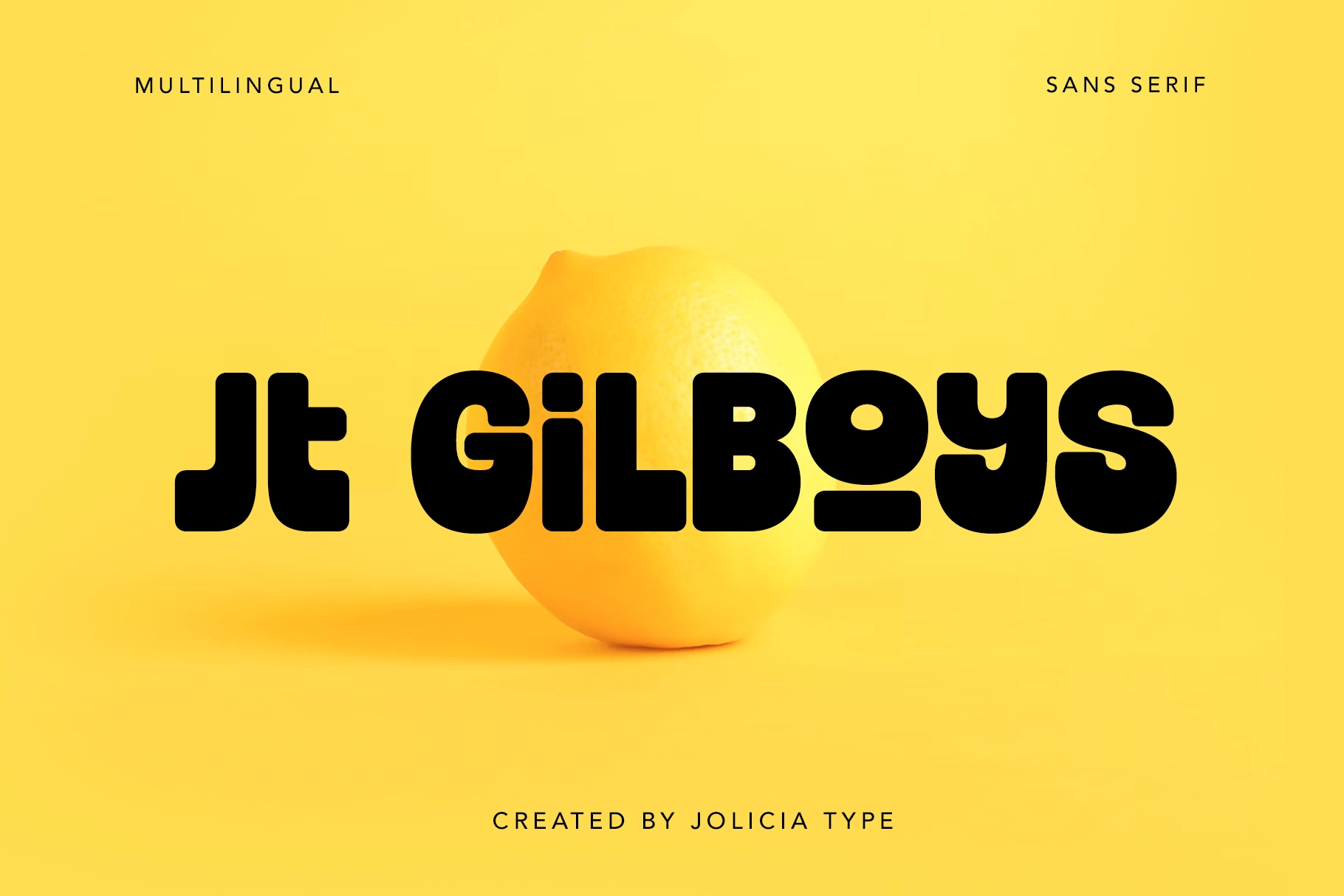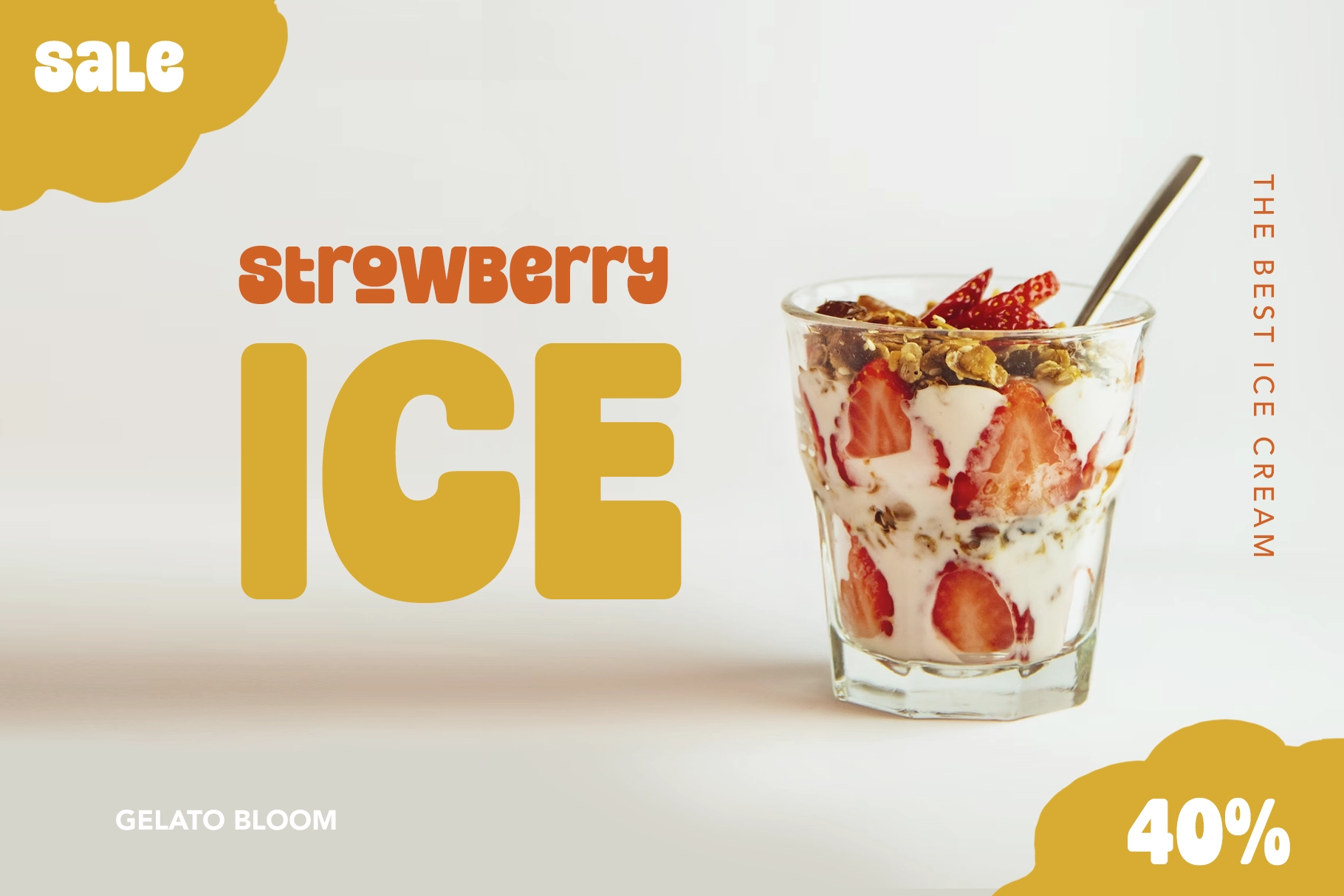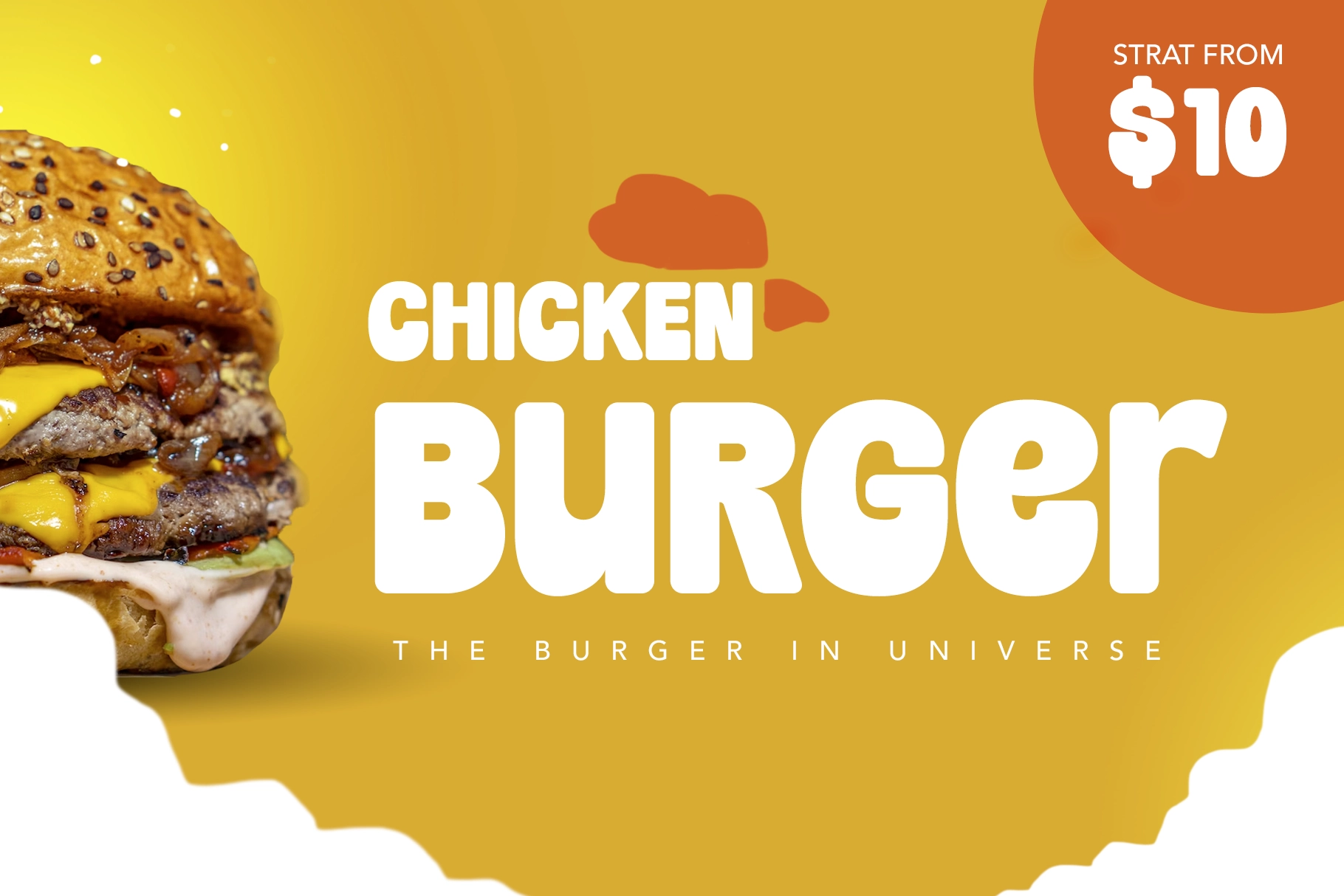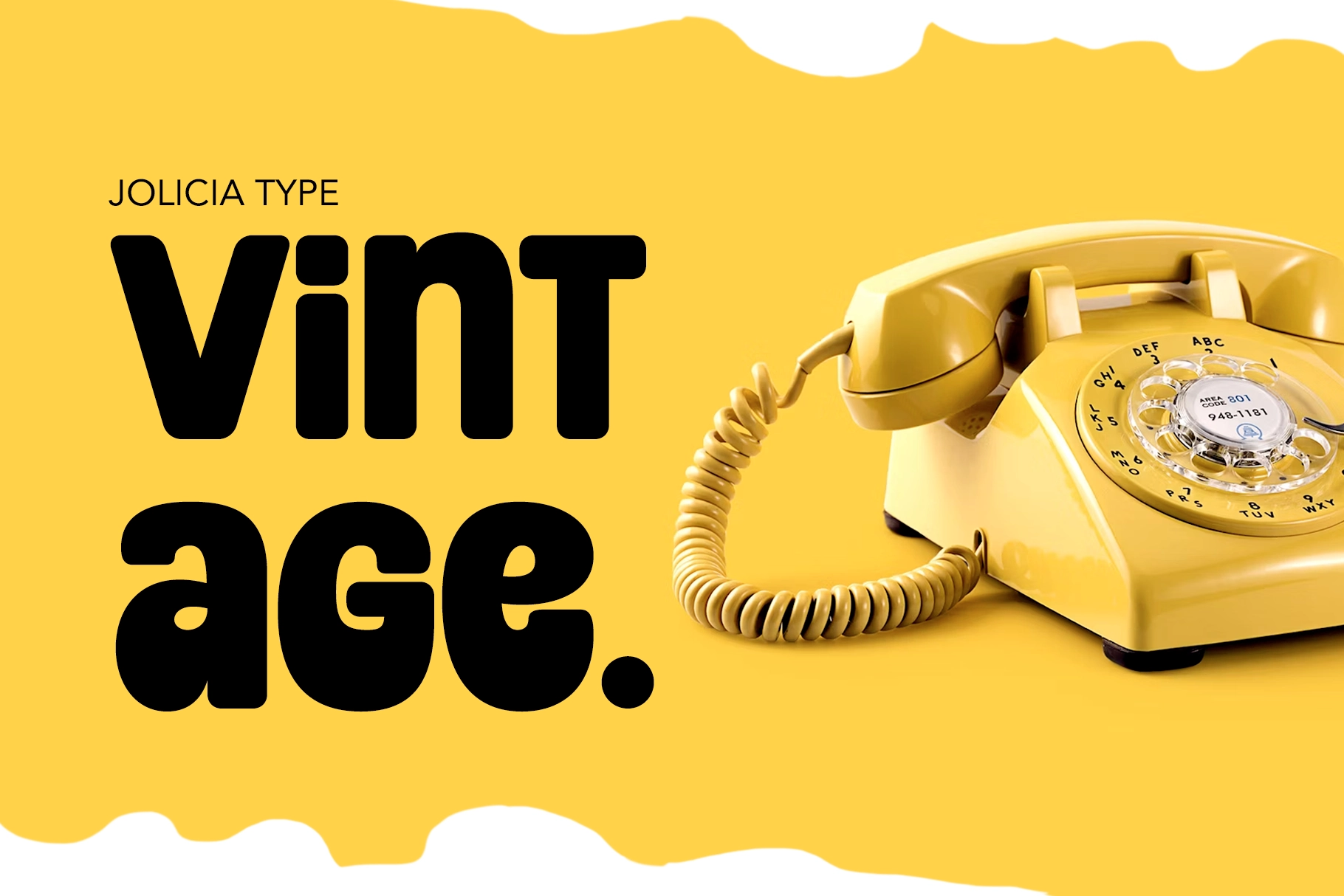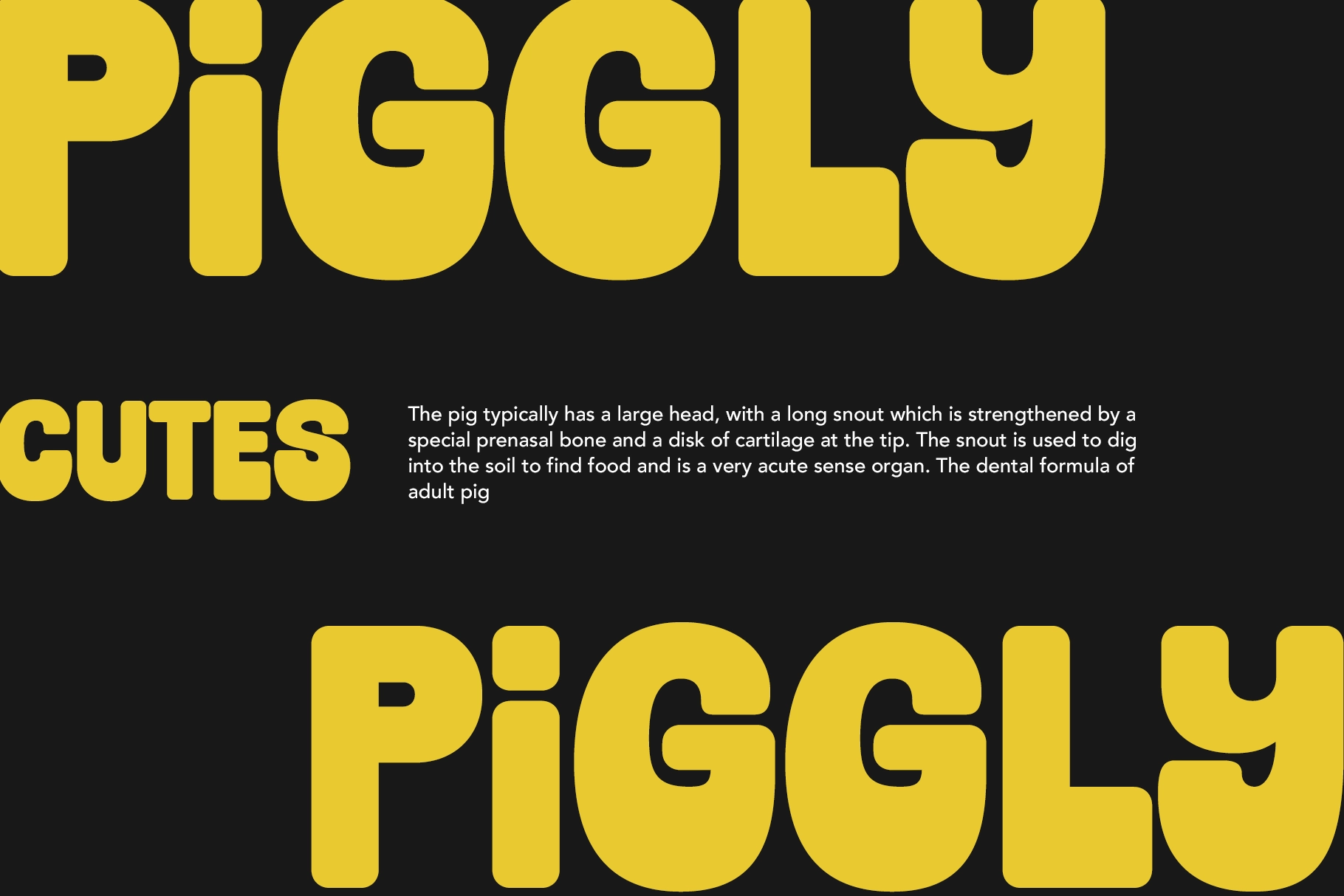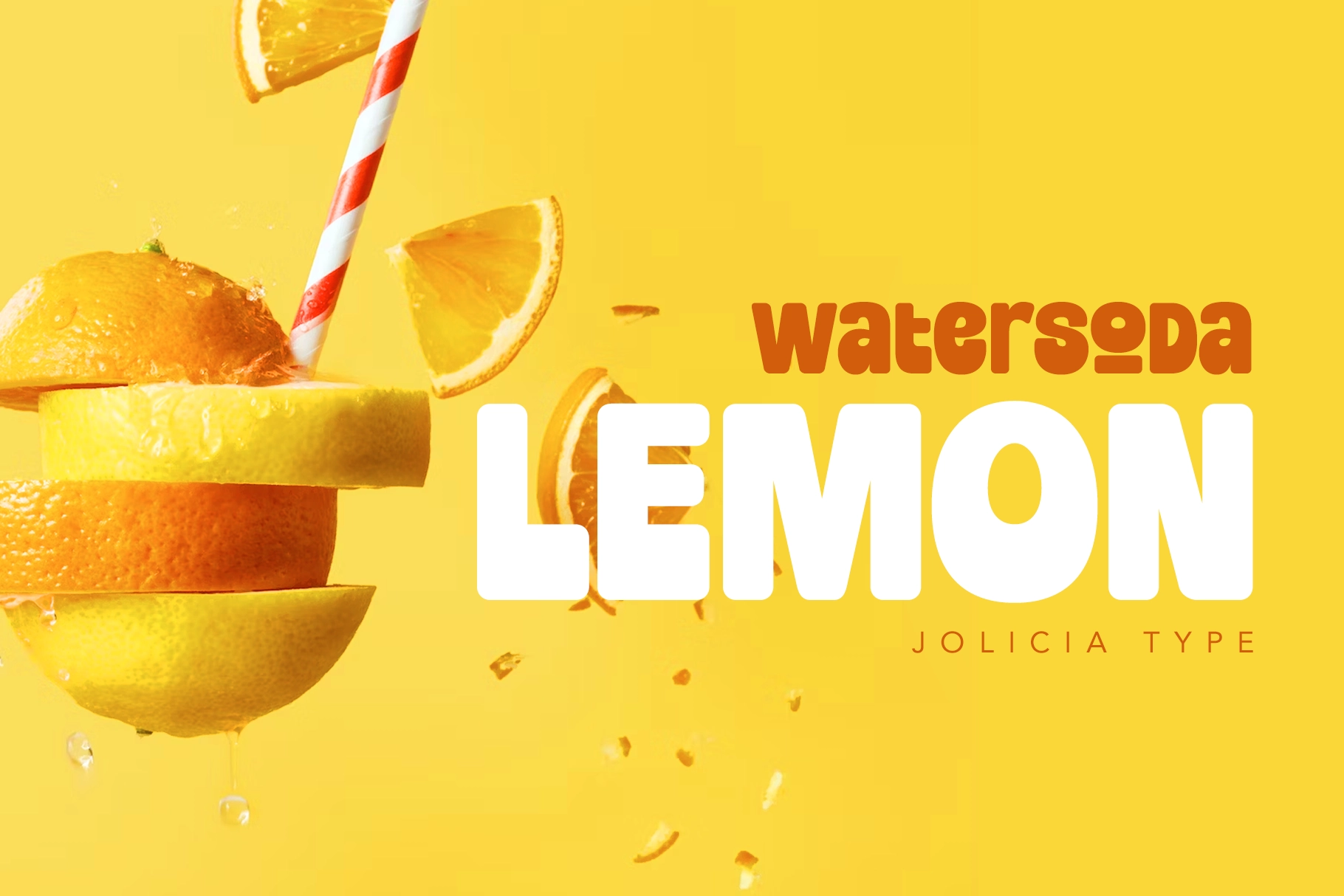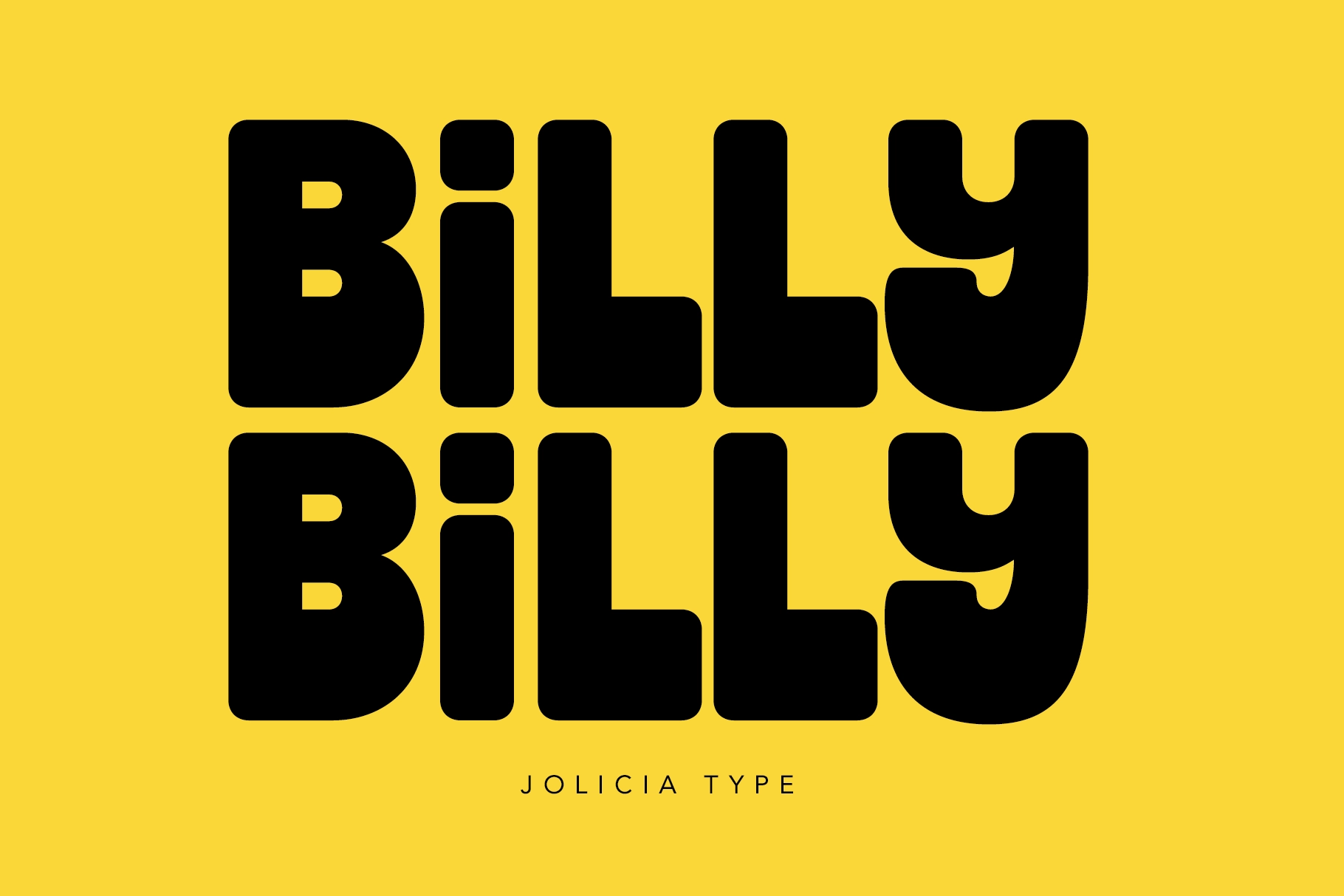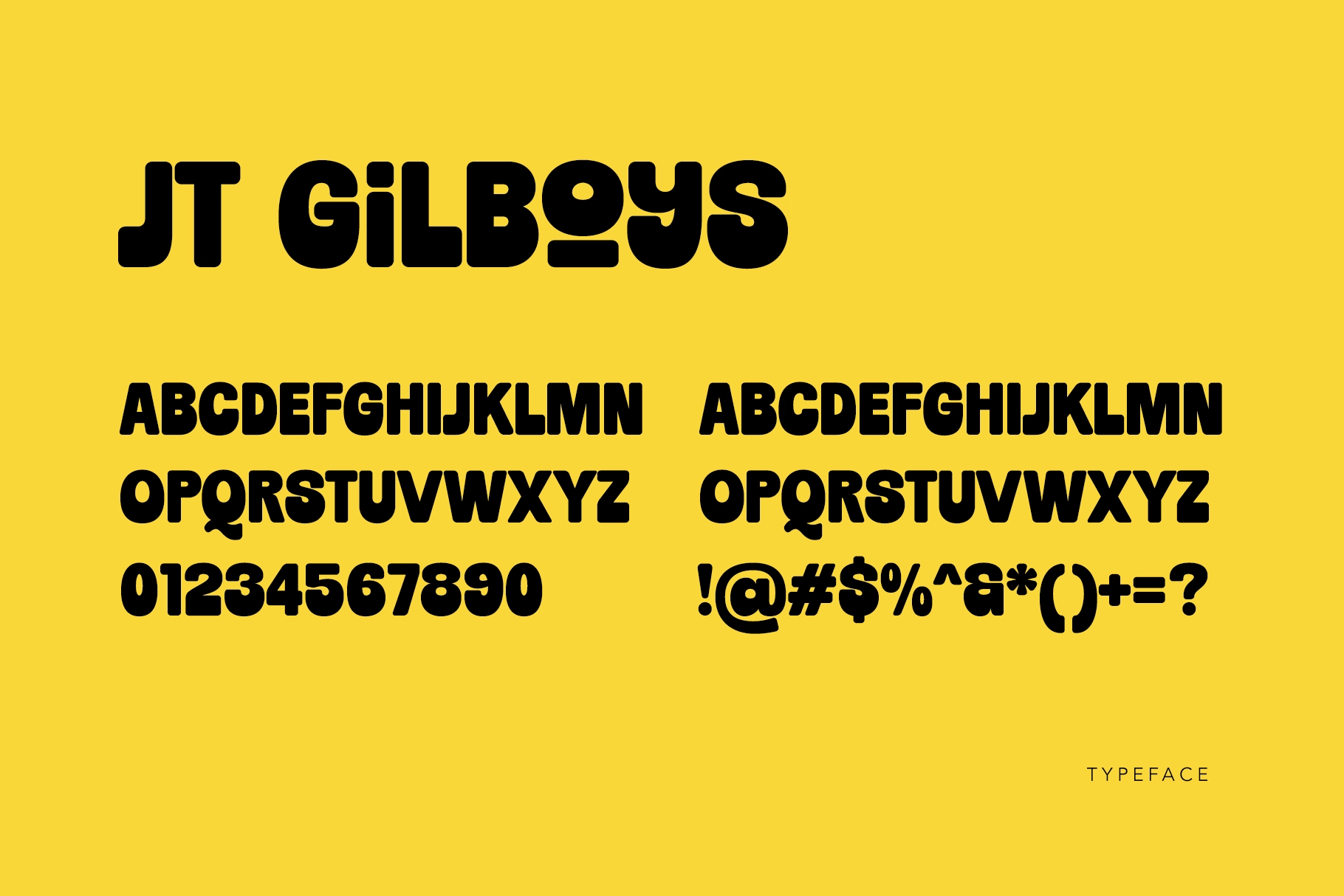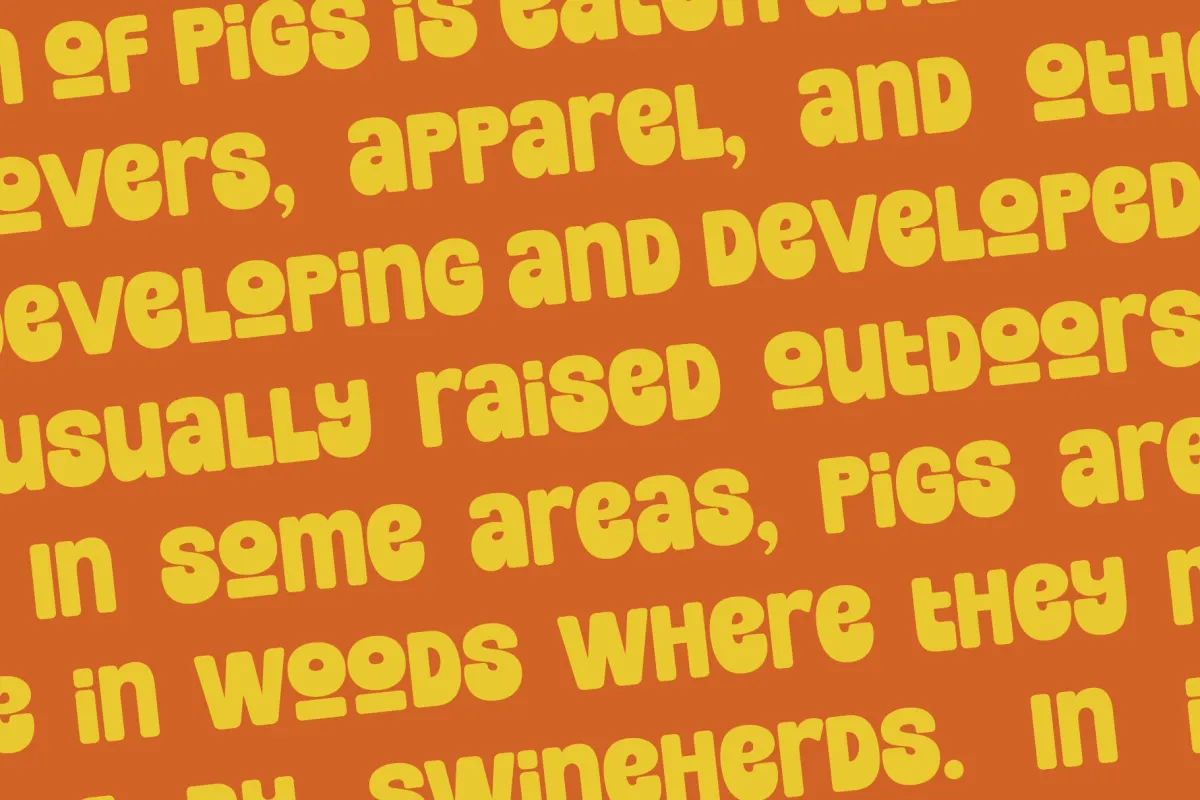
Jt Gilboys - Bold Rounded Display Font
Jt Gilboys
Jt Gilboys - Bold Rounded Display Font is a characterful display typeface inspired by bold, rounded forms and soft geometry. With its thick strokes and smooth curves, it creates a friendly yet powerful visual presence that feels both modern and playful.
Perfect for editorial layouts, branding, and logo design, Jt Gilboys offers flexibility through its glyph variations, allowing you to craft unique and distinctive compositions. Its fat, rounded shapes bring a charismatic and memorable identity to any project.
- Stylistic Glyphs
- Bold Rounded Display Style